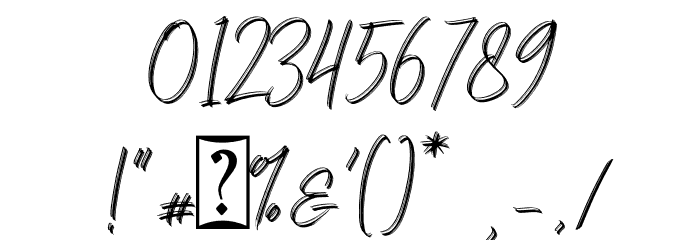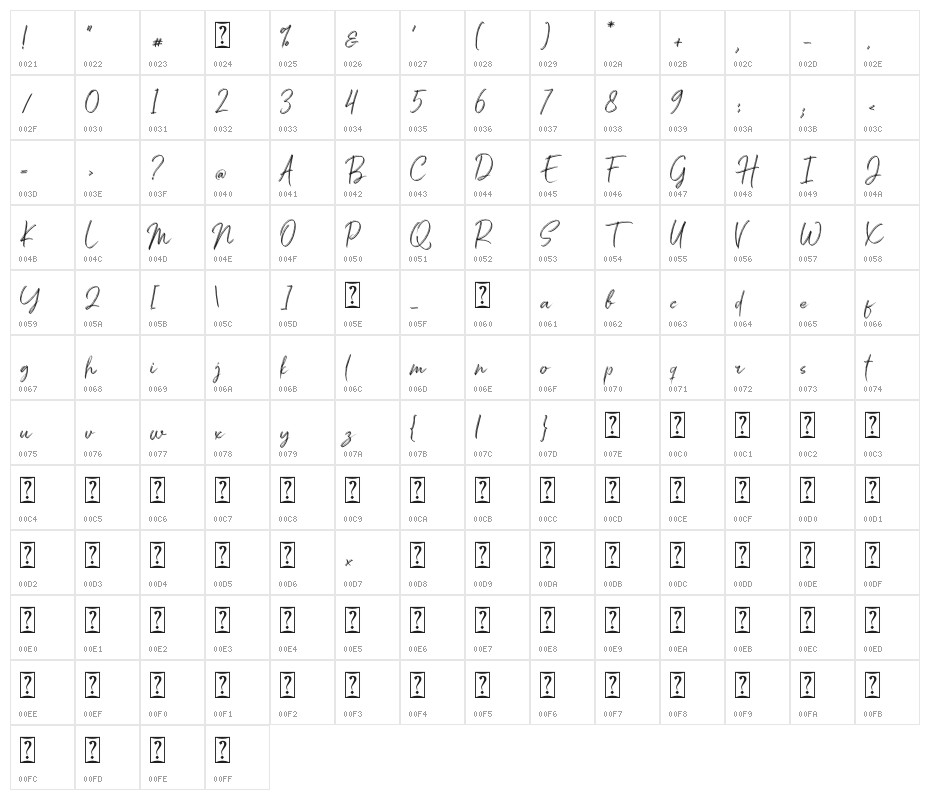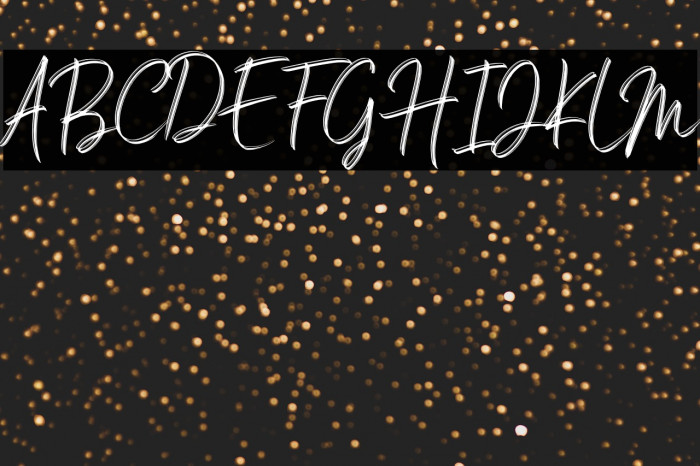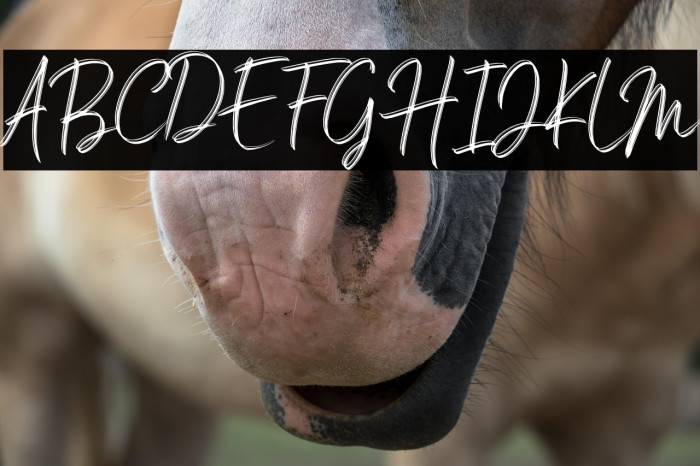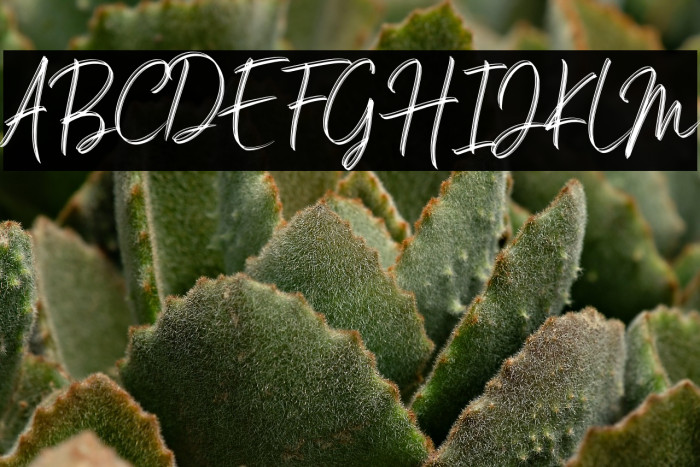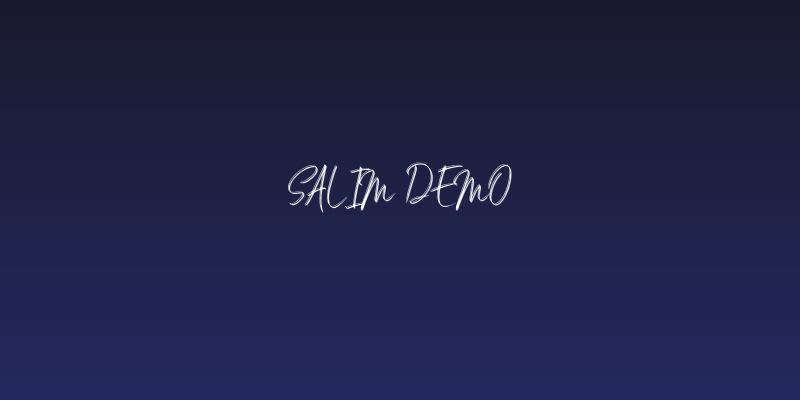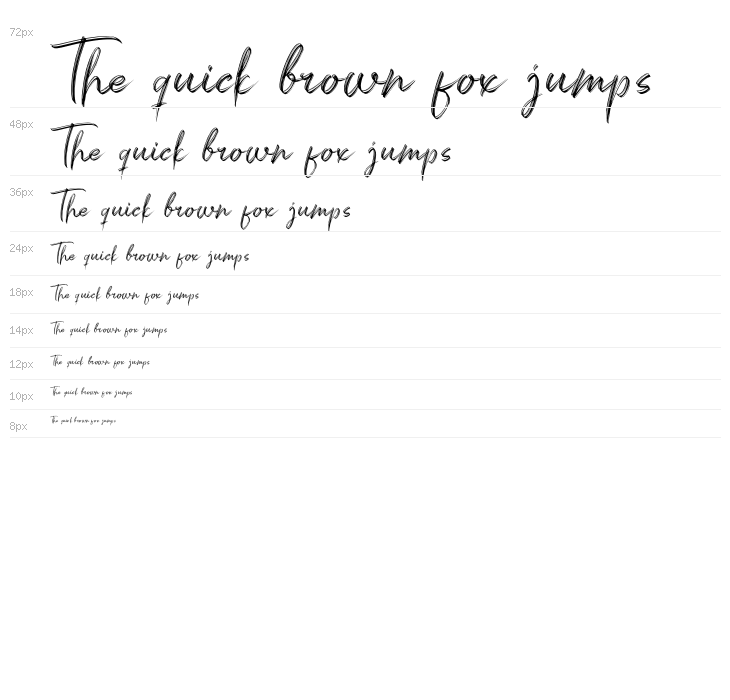
Salim DEMO Font
Salim DEMO Description
This font exudes a dynamic and energetic vibe with its flowing, cursive style. The letters are crafted with a sense of motion, featuring elegant loops and swirls that give it a handwritten appearance. The uppercase letters stand tall with a slight slant, while the lowercase letters maintain a consistent flow, enhancing readability. Numbers and special characters are designed to match the overall aesthetic, ensuring a cohesive look. The strokes vary in thickness, adding a touch of sophistication and artistic flair. This font is perfect for projects that require a personal touch, such as invitations, greeting cards, or branding materials.
| Proposed Projects | Ideal for invitations, greeting cards, branding, and artistic projects. |